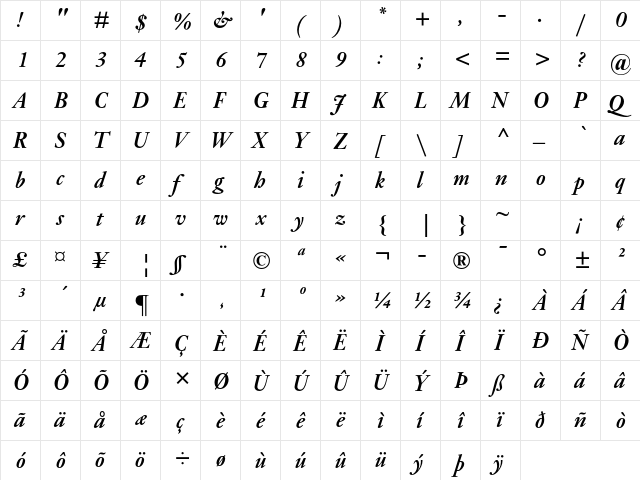
Janson MT Std Bold Italic Font Preview
Janson MT Std Bold Italic
Janson MT Std Bold Italic Font Details
Design Context for Janson MT Std Typeface
Janson MT Std offers clean, dependable letterforms without strong stylistic allegiance, making it a practical choice for designers who need flexibility. The dynamic lean of this cut emphasises speed and emphasis in any layout. The heavy weight commands attention and anchors typographic hierarchies.
Pro Tip: Use Janson MT Std for emphasis, pull quotes, and subheadings where its slanted energy can add rhythm to the layout.